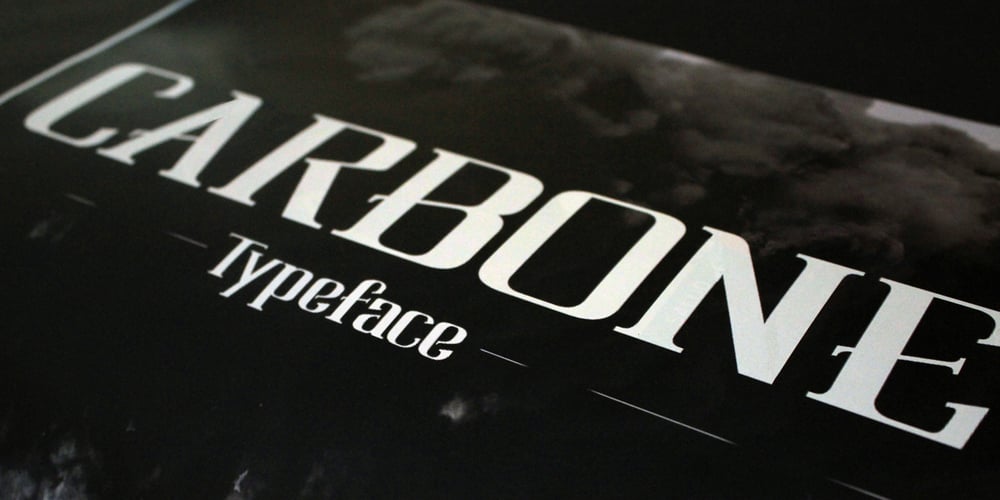
NOh Carbone
NOh Carbone font
NOh Carbone Font Family was designed by Nach Oh! and published by OhType!. NOh Carbone contains 1 styles and family package options. NOh CARBONE is a serif typeface with more than 250 glyphs, including Capitals, Small Letters, Numbers & Special glyphs and Punctuation. Appropriate for medium and large formats, its high contrast, strong features & aggressive and unconventional diagonal endow it with great elegance and give it distinction over other types of the same style. This typeface is adapted to different topics and applications, is easily modifiable and capable of generating a clear and direct message.